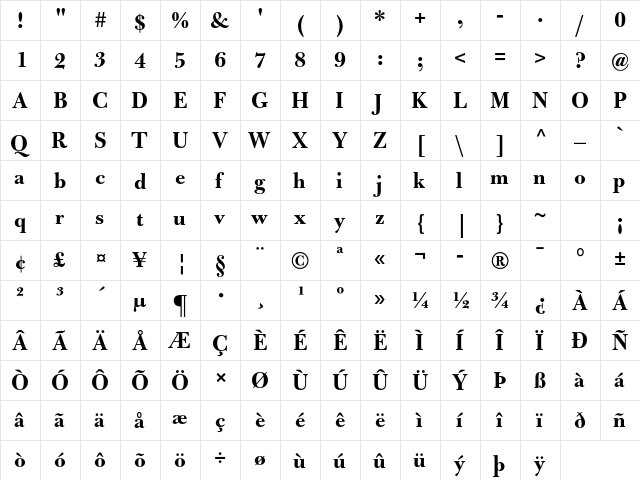
Bulmer MT Std Bold
| Designer | Morris Fuller Benton, William Martin |
Design Context for Bulmer MT Std Typeface
Bulmer MT Std takes a measured approach to typography — its balanced proportions and neutral character make it a reliable workhorse for both digital and print work. The heavy weight commands attention and anchors typographic hierarchies.